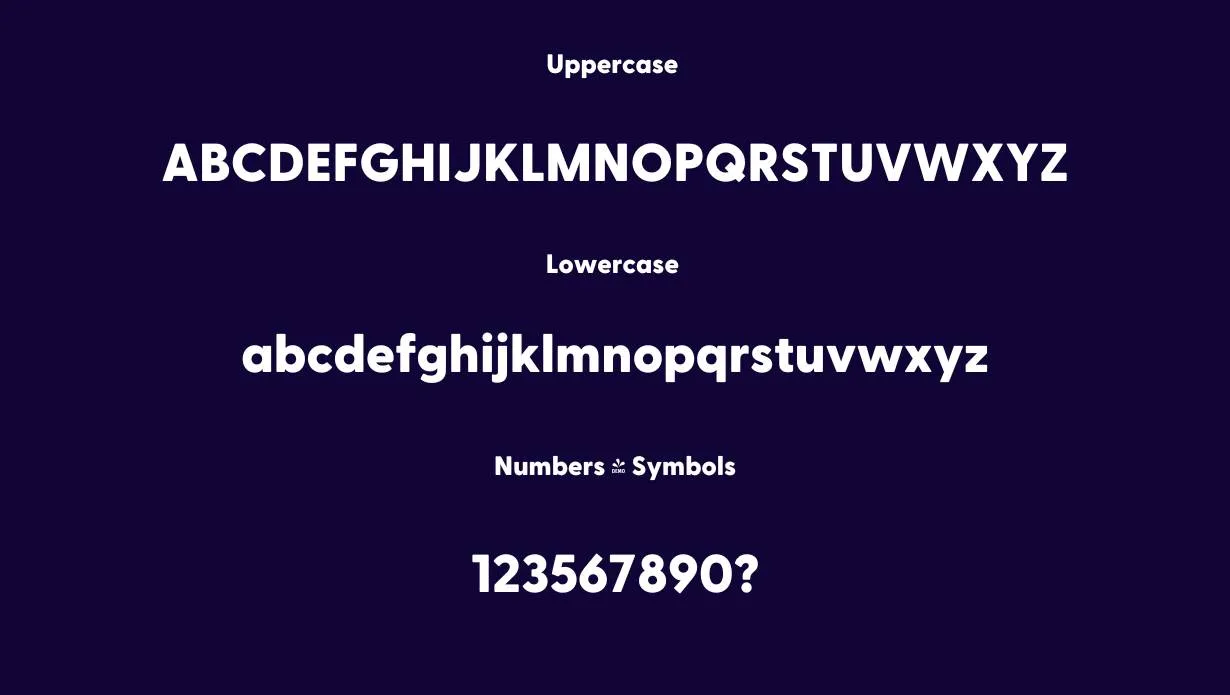
The Greycliff Font is a modern marvel, embodying the sleekness of contemporary design. Its clean characters make it perfect for creating a polished look in visuals crafted with Adobe Photoshop, adding a touch of style to web design with CSS, or designing professional and modern documents in MS Word.
This font effortlessly adapts to different design applications, offering a fresh and sophisticated presence.